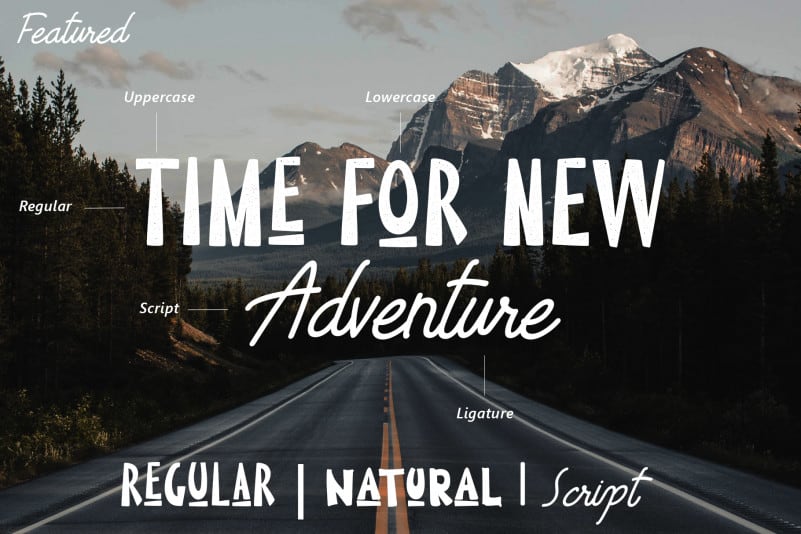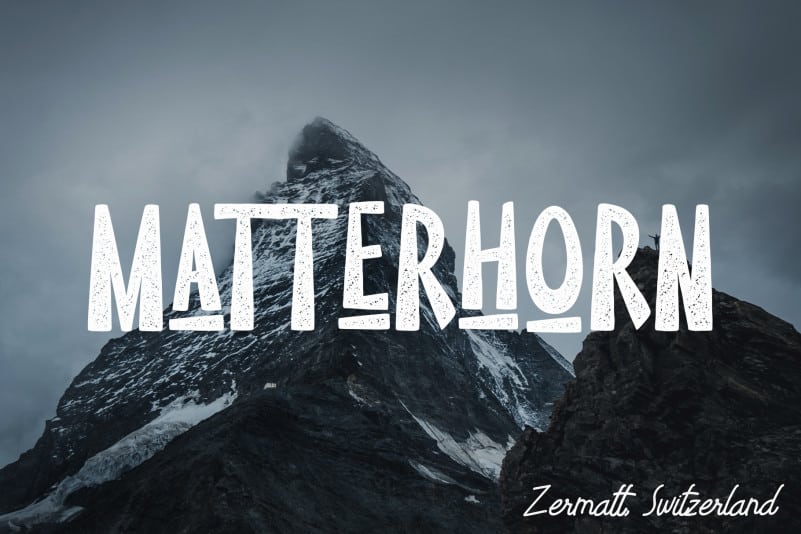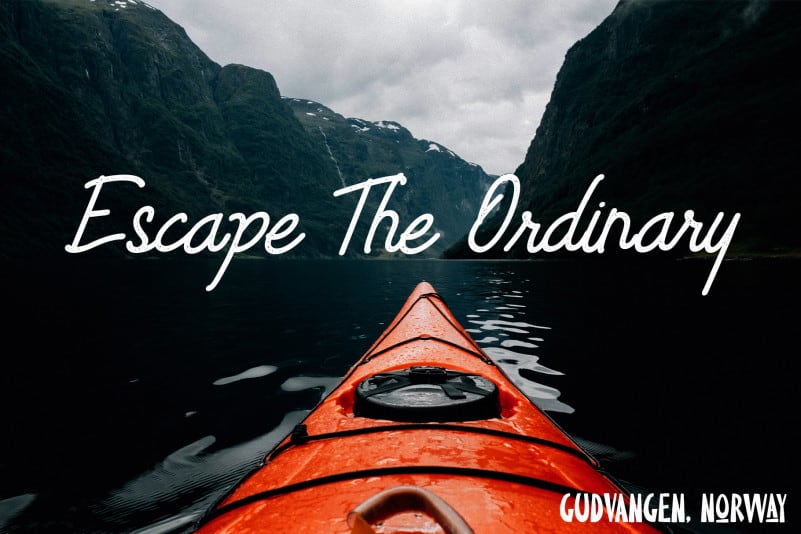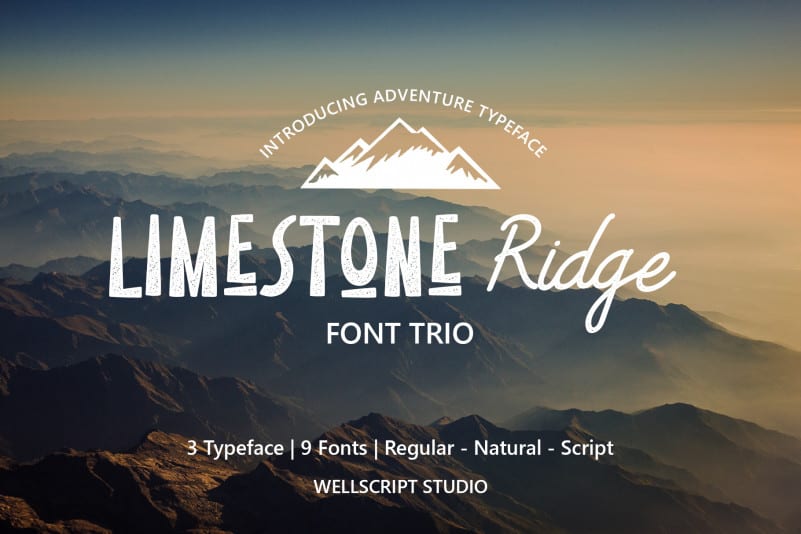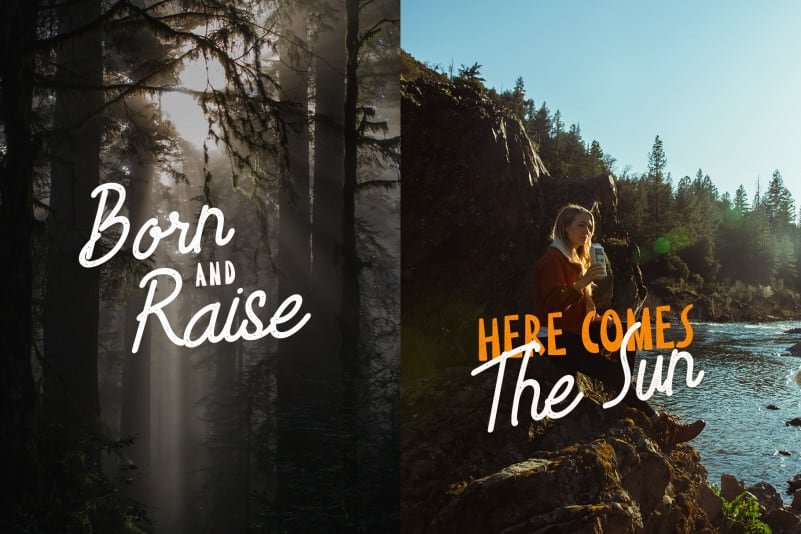
Limestone Ridge – Trio Adventure Font
Limestone Ridge – Trio Adventure Font is a Trio font with display sans serif and script handwritten typeface inspired from adventure activity. The script Typeface have a smooth edges, so it will bring a amazing handwriting looked like. Limestone Ridge come with three typefaces styles clean, press and wild press.